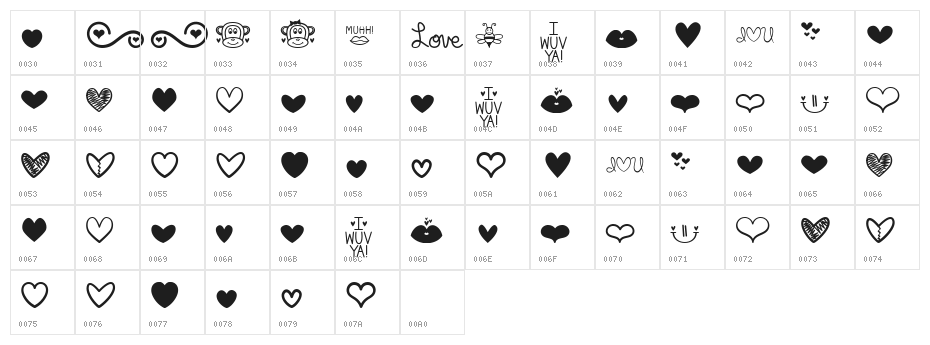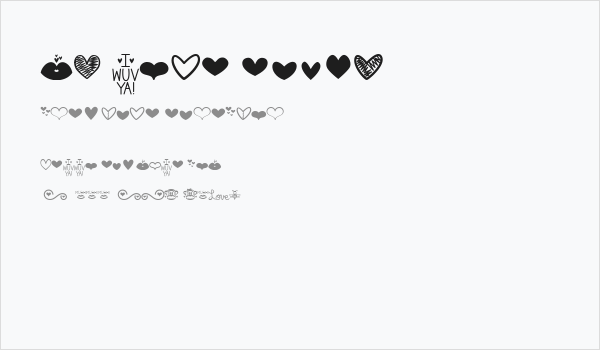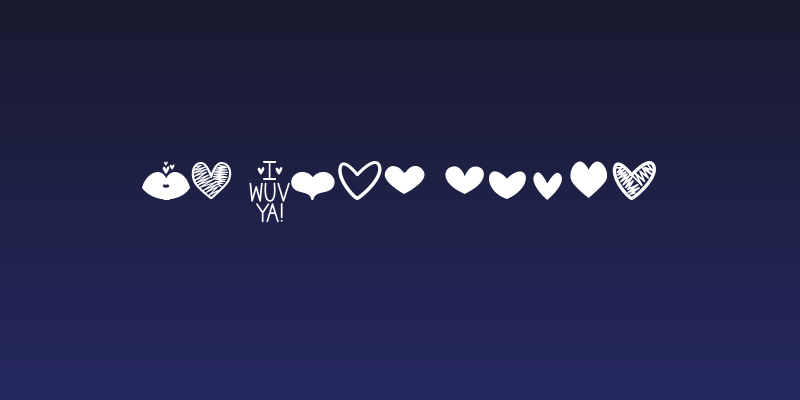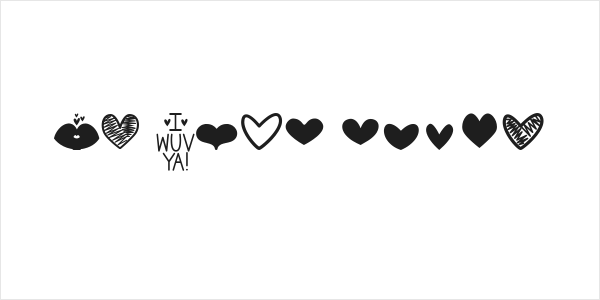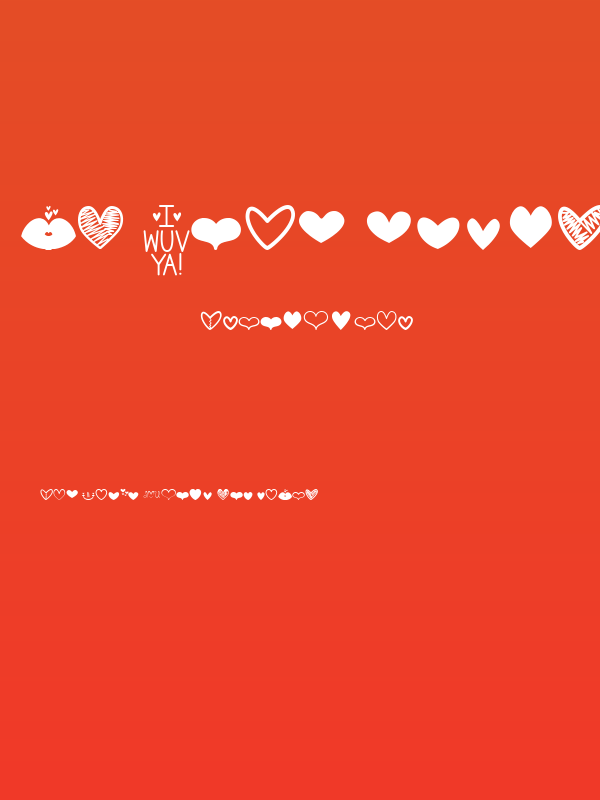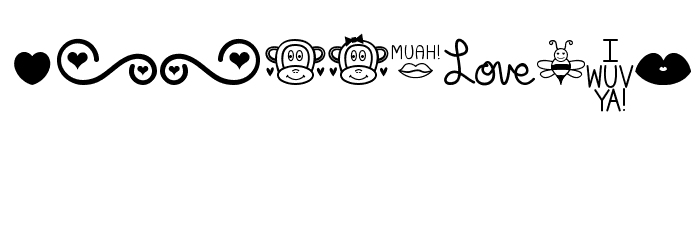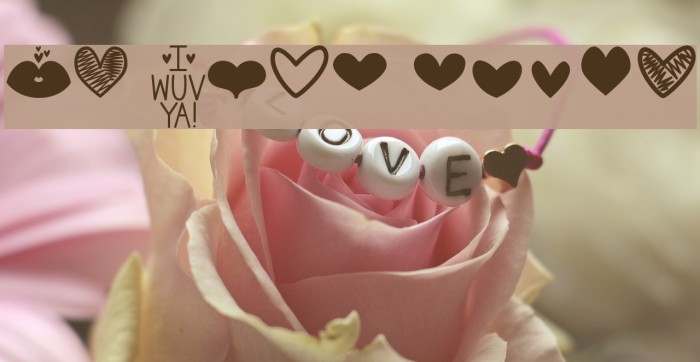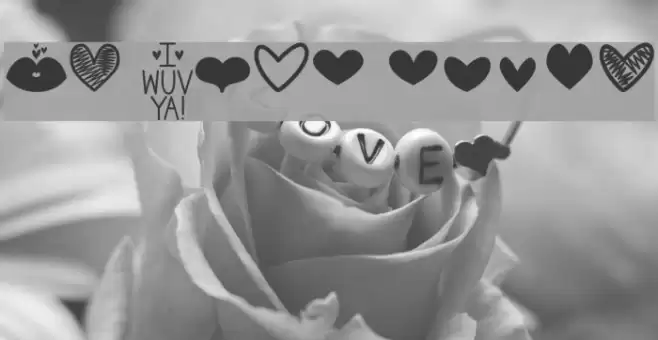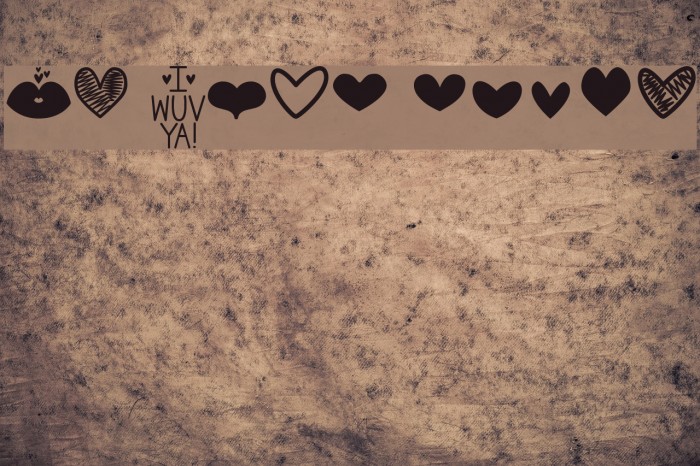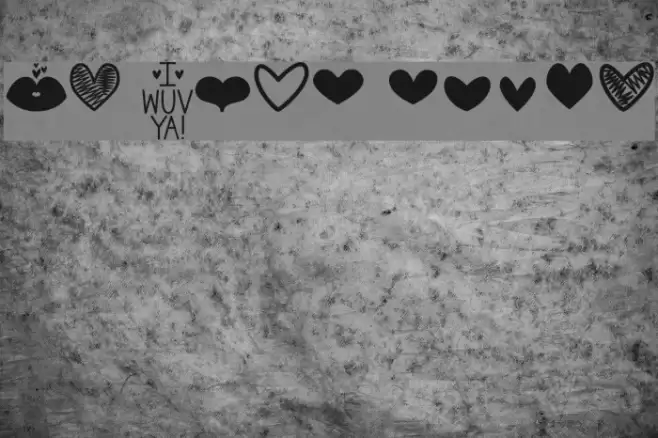
MF Love Dings Font
This font is a playful and whimsical collection of love-themed dingbats, featuring a variety of heart shapes, playful monkeys, and affectionate phrases. The designs include solid and outlined hearts, some with arrows or decorative patterns, and charming expressions like 'I WUV YA!' and 'MUAH!'. The style is cartoonish and fun, with a hand-drawn feel that adds a personal touch. The elements are bold and easily recognizable, making them perfect for adding a touch of love and humor to any project. The font captures a sense of joy and affection, ideal for romantic or lighthearted themes.
| Use Case | Decorative elements, Crafts, Greeting cards |
| Proposed Projects | Ideal for Valentine's Day cards, wedding invitations, playful social media graphics, and love-themed crafts. |